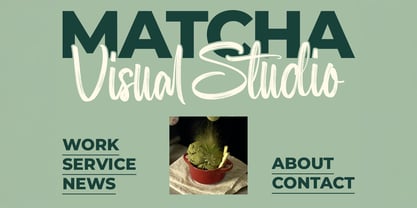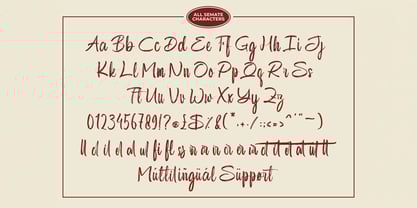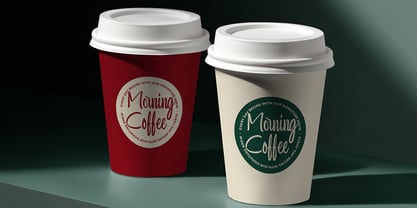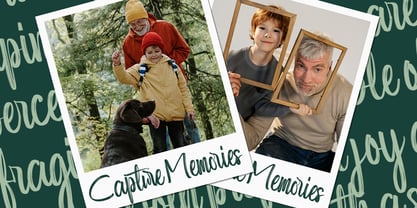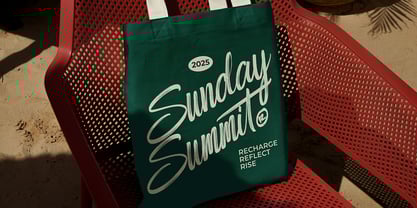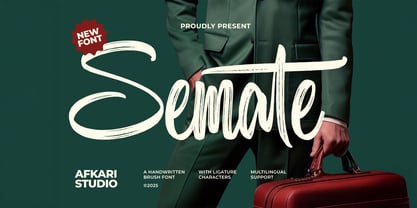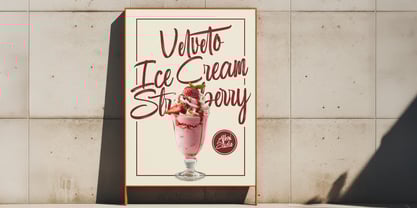
Semate
by Afkari Studio
The Semate Font Family was designed by Musthafa Kamal Emje and published by Afkari Studio. Semate contains 1 styles.
Semate – Handwritten Brush Font is full of raw energy, expressive strokes, and an authentic handmade feel. Designed to mimic real brush pen lettering, Semate delivers natural flow, bold movement, and a casual artistic vibe that makes your message feel personal and powerful.
Perfect for creatives who love to design with heart and edge, Semate is ideal for logos, apparel designs, posters, quotes, social media graphics, packaging, and more. Whether you're building a bold brand or adding personality to your visuals, this font stands out with character.
Every letter in Semate carries texture and rhythm—giving your design that unpolished, handcrafted soul we all crave.
Features;
- Uppercase, Lowercase, Number, and Punctuation
- Special Alternates and ligatures
- Mültîlíñgúãl Sùppört for; ä ö ü Ä Ö Ü ß ¿ ¡
If your project needs a bold human touch, Sopite is ready to write it out loud.